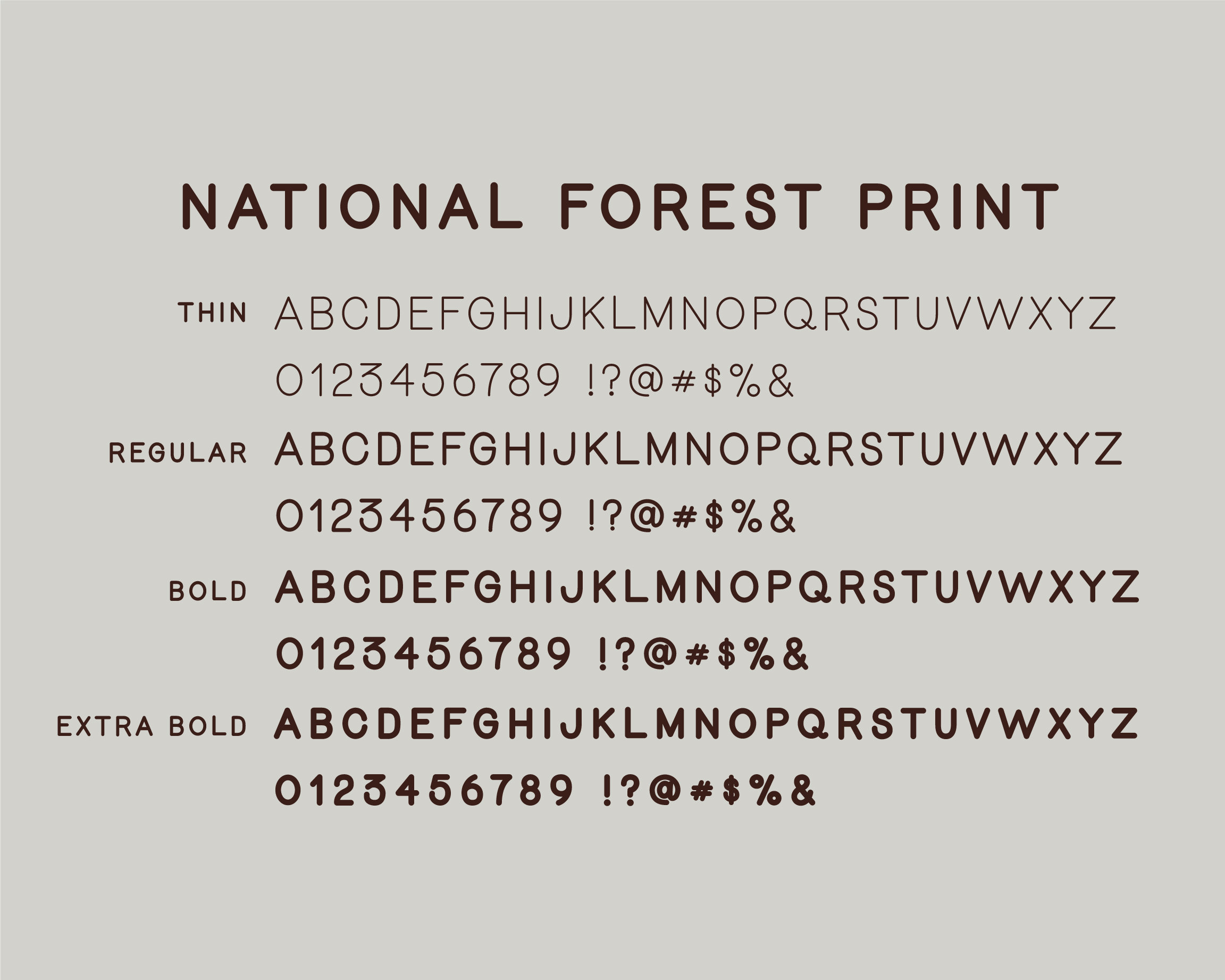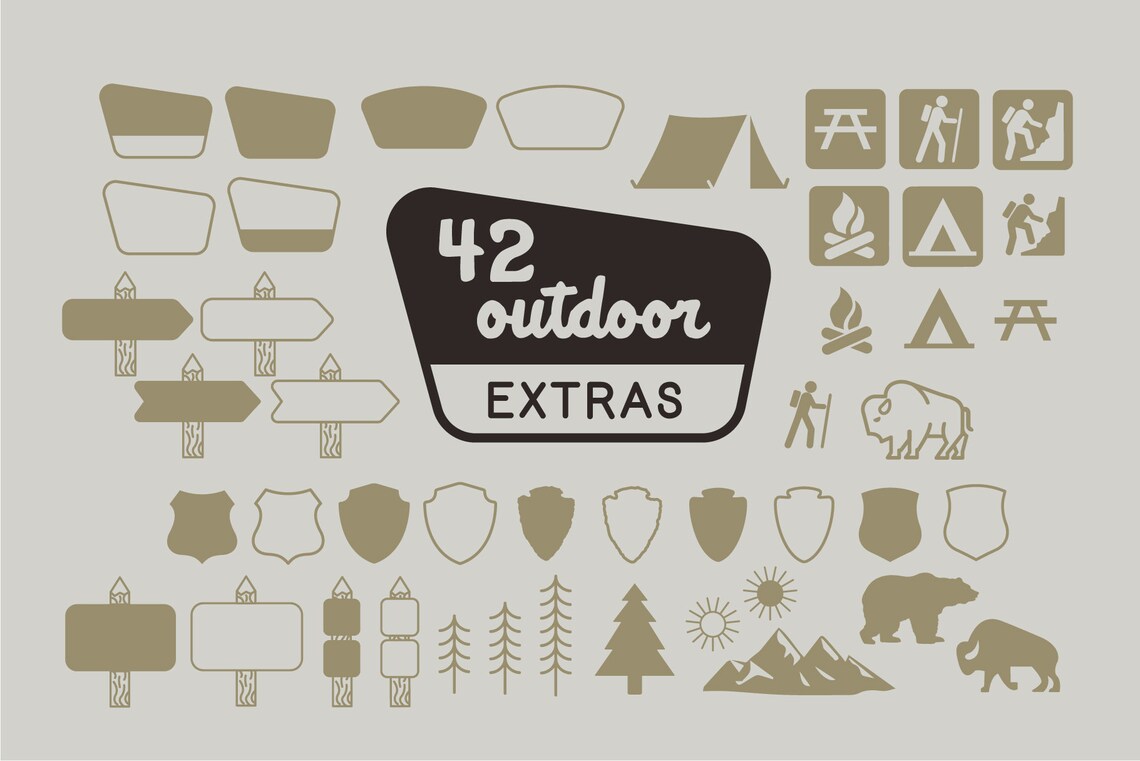
National Forest Font
National Forest Font - Web the standards specify two typefaces: Nps rawlinson is used by the national park service under license from its creator, terminal design. It was designed by rachel kick to put the timeless nostalgia of. Inspired by the iconic signs found in us national parks. National forest font is a typeface duo inspired by the national park service signs that are all made using a router bit. It was designed to put the timeless nostalgia of national park signs into a digital typeface. Web national forest sign font. Sep 14, 2021 at 21:54. Web national forest is a font duo inspired by the national park service signs that are all made using a router bit. Web national forest font is a beautiful and distinctive typeface designed to evoke a sense of nature and the great outdoors.
Sep 14, 2021 at 21:54. It was designed by rachel kick to put the timeless nostalgia of. Web national forest font free download. It was designed to put the timeless nostalgia of national park signs into a digital typeface. Web national forest font is a beautiful and distinctive typeface designed to evoke a sense of nature and the great outdoors. National forest font is a typeface duo inspired by the national park service signs that are all made using a router bit. Inspired by the iconic signs found in us national parks. I'm attempting to find a font that closely matches the national forest text, a thick but simple and clean cursive. Web the standards specify two typefaces: Web national forest sign font.
Web national forest sign font. It was designed by rachel kick to put the timeless nostalgia of. Nps rawlinson is used by the national park service under license from its creator, terminal design. Inspired by the iconic signs found in us national parks. Web national forest is a font duo inspired by the national park service signs that are all made using a router bit. Web the standards specify two typefaces: It was designed to put the timeless nostalgia of national park signs into a digital typeface. Sep 14, 2021 at 21:54. Web national forest font is a beautiful and distinctive typeface designed to evoke a sense of nature and the great outdoors. National forest font is a typeface duo inspired by the national park service signs that are all made using a router bit.
Nps rawlinson is used by the national park service under license from its creator, terminal design. Web national forest font is a beautiful and distinctive typeface designed to evoke a sense of nature and the great outdoors. Web national forest is a font duo inspired by the national park service signs that are all made using a router bit. Inspired.
Web national forest font free download. Web national forest is a font duo inspired by the national park service signs that are all made using a router bit. Sep 14, 2021 at 21:54. It was designed by rachel kick to put the timeless nostalgia of. Inspired by the iconic signs found in us national parks.
Sep 14, 2021 at 21:54. It was designed by rachel kick to put the timeless nostalgia of. Web national forest is a font duo inspired by the national park service signs that are all made using a router bit. I'm attempting to find a font that closely matches the national forest text, a thick but simple and clean cursive. Web.
Sep 14, 2021 at 21:54. Web national forest font free download. Web national forest sign font. Web the standards specify two typefaces: National forest font is a typeface duo inspired by the national park service signs that are all made using a router bit.
Sep 14, 2021 at 21:54. Web national forest is a font duo inspired by the national park service signs that are all made using a router bit. I'm attempting to find a font that closely matches the national forest text, a thick but simple and clean cursive. It was designed by rachel kick to put the timeless nostalgia of. Web.
Web national forest font is a beautiful and distinctive typeface designed to evoke a sense of nature and the great outdoors. Web the standards specify two typefaces: Web national forest is a font duo inspired by the national park service signs that are all made using a router bit. It was designed by rachel kick to put the timeless nostalgia.
National Forest Font by Rachel Kick on Dribbble
Web national forest is a font duo inspired by the national park service signs that are all made using a router bit. Inspired by the iconic signs found in us national parks. Nps rawlinson is used by the national park service under license from its creator, terminal design. National forest font is a typeface duo inspired by the national park.
National Forest Font Duo Etsy
Web national forest font is a beautiful and distinctive typeface designed to evoke a sense of nature and the great outdoors. Web national forest sign font. I'm attempting to find a font that closely matches the national forest text, a thick but simple and clean cursive. Web the standards specify two typefaces: It was designed by rachel kick to put.
National Forest Font Free Best Fonts & SVG
I'm attempting to find a font that closely matches the national forest text, a thick but simple and clean cursive. National forest font is a typeface duo inspired by the national park service signs that are all made using a router bit. Sep 14, 2021 at 21:54. Inspired by the iconic signs found in us national parks. Nps rawlinson is.
National Forest Font Duo Etsy
National forest font is a typeface duo inspired by the national park service signs that are all made using a router bit. Nps rawlinson is used by the national park service under license from its creator, terminal design. Web national forest font free download. It was designed by rachel kick to put the timeless nostalgia of. Web national forest font.
Web National Forest Font Is A Beautiful And Distinctive Typeface Designed To Evoke A Sense Of Nature And The Great Outdoors.
I'm attempting to find a font that closely matches the national forest text, a thick but simple and clean cursive.